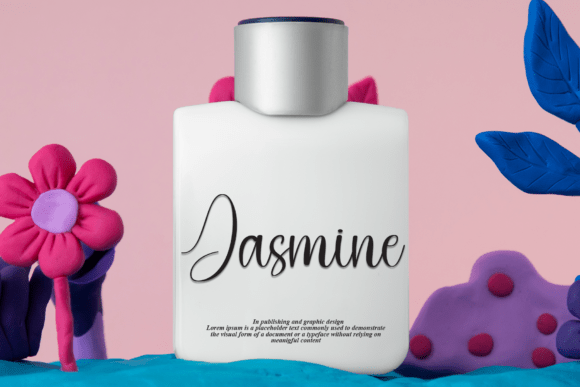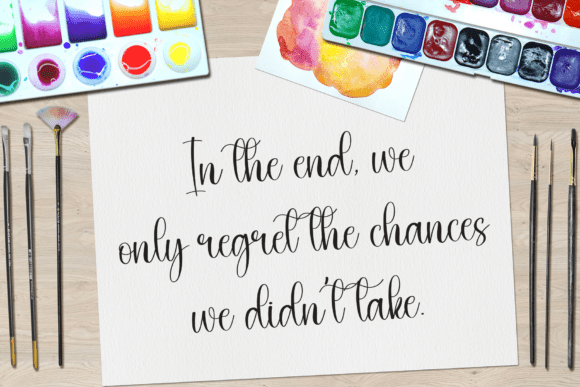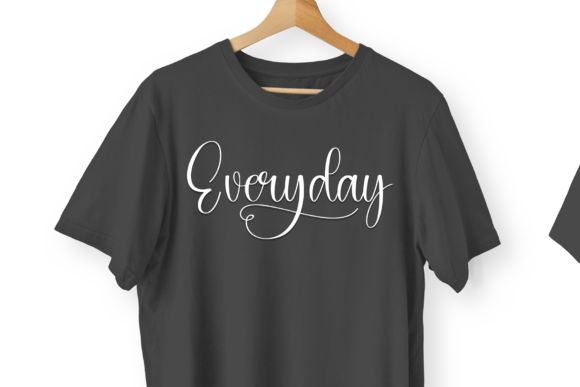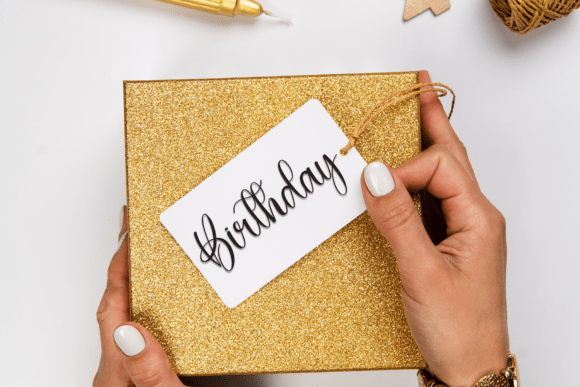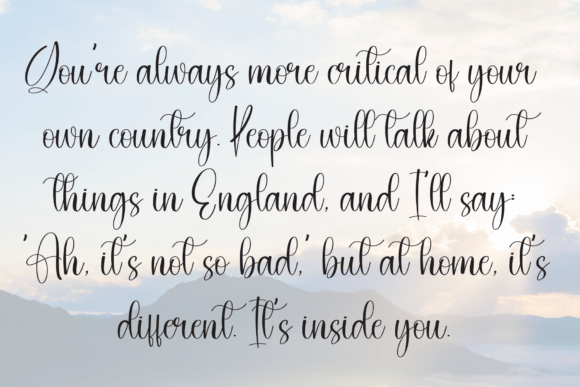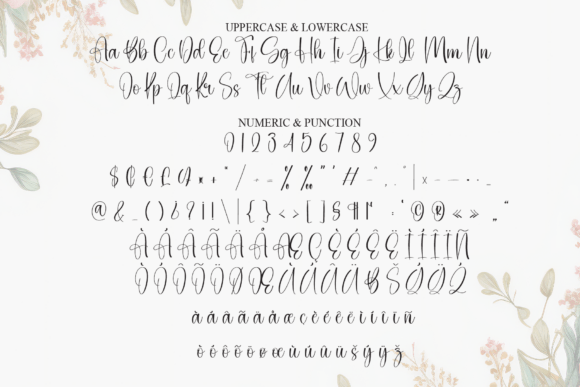
Introduction to Outgrow Font
Have you ever stumbled upon a font that instantly makes your design feel more personal and charming? For many designers, that moment of discovery can be a game-changer. It’s the moment when the perfect font brings a project to life, making it stand out from the crowd. Today, we’re excited to introduce you to the Outgrow Font – a stylish handwritten script font that’s about to become your new go-to design resource.
With its flowing curves and natural rhythm, Outgrow Font adds a touch of elegance and playfulness to any project. Whether you’re working on a high-quality branding, a social media campaign, or a creative project, this font is sure to bring warmth, sophistication, and a personal touch. And the best part? You can download the Outgrow Font for free, complete with a transparent background, making it a versatile design tool for any creative project.
Key Features of Outgrow Font
- High-quality design resource ideal for creative projects, including logos, branding, and digital art.
- Perfect for designers seeking a unique and creative font to elevate their projects, with a distinctive style that sets it apart from other fonts.
Honest Review: Outgrow Font
I recently had the opportunity to experiment with the Outgrow Font, and I must say, it’s a high-quality design resource that can elevate any creative project.
What works well: ✨ The Outgrow Font offers a unique, modern aesthetic that’s perfect for a wide range of applications. I particularly appreciate the transparent background option, which allows for seamless integration with any design. The font is also highly customizable, making it a great choice for designers who like to experiment.
- Perfect for creative projects that require a modern, unique aesthetic
- Highly customizable with transparent background option
Using Outgrow Font in Creative Projects
Tips for Getting the Most Out of Outgrow Font
For optimal results, use Outgrow Font on a transparent background to create a seamless design. Experiment with different font sizes and colors to add visual interest to your project. You can also combine Outgrow Font with other design elements, such as images and graphics, to create a unique and eye-catching design.
Common Use Cases for Outgrow Font
Outgrow Font is ideal for a range of creative projects, including business cards, brochures, and social media graphics. It’s also a great choice for personal projects, such as photo albums and invitations. With its high-quality design and free download option, Outgrow Font is a valuable resource for any designer or creative professional.